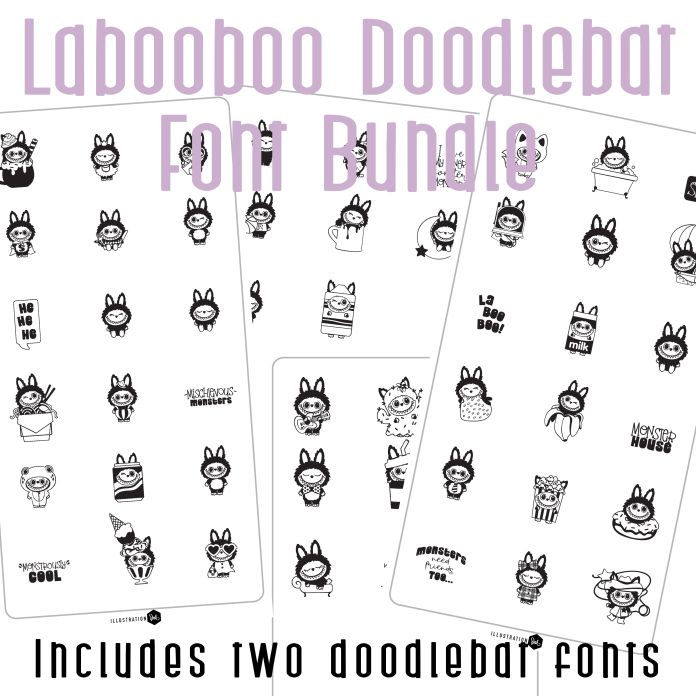
These fun doodlebat fonts bundle stars our Labooboo Monsters. These friendly monsters are perfect for adorning purses, backpacks, cards, celebrating birthday and all occasions! This bundle includes TWO dingbat fonts for a total of 58 characters. (characters a-z and A-Z and a bonus six in glyphs 0-5 in the Labooboo Too Dingbat).